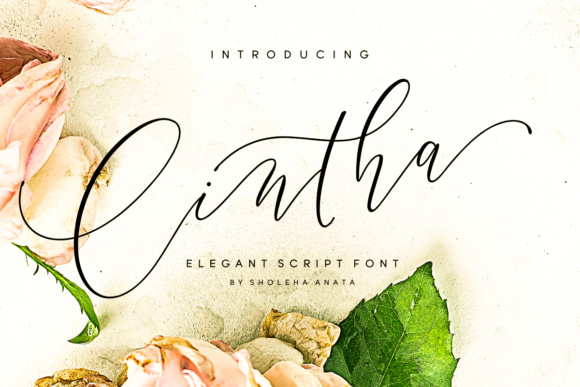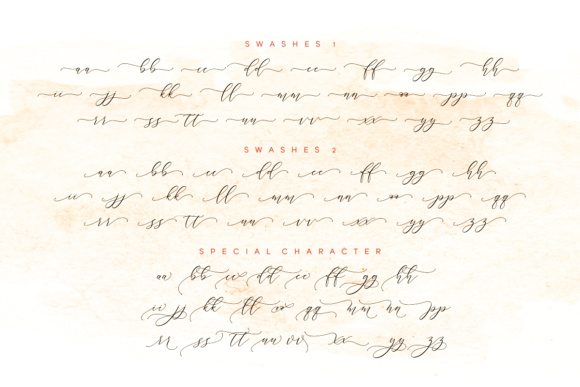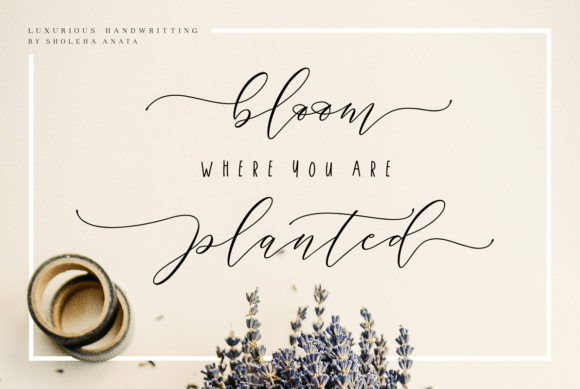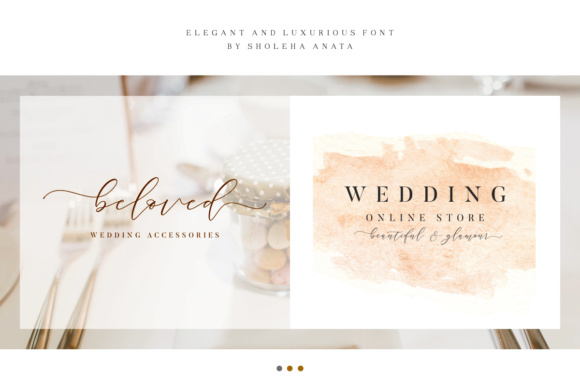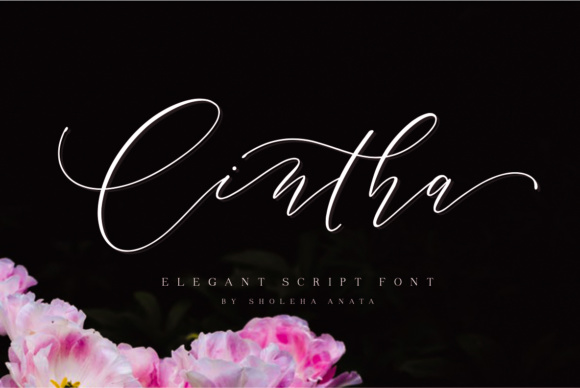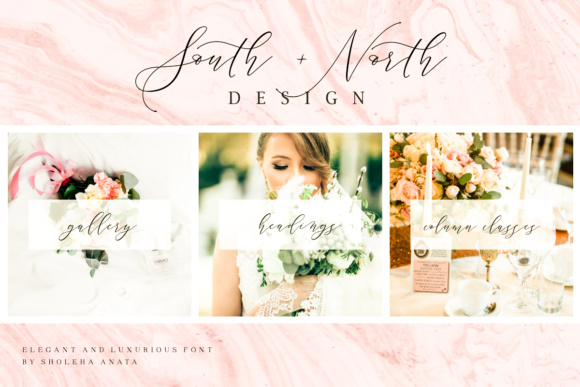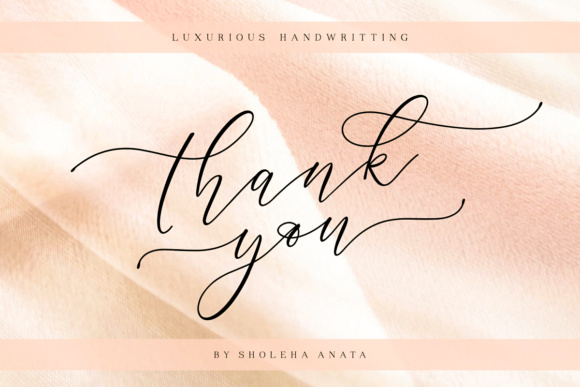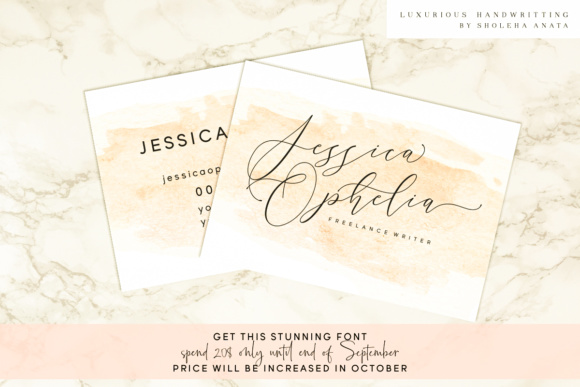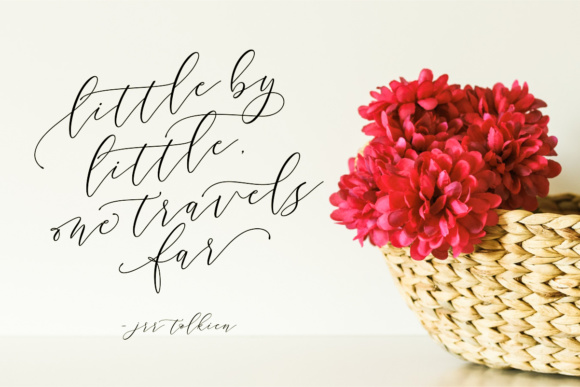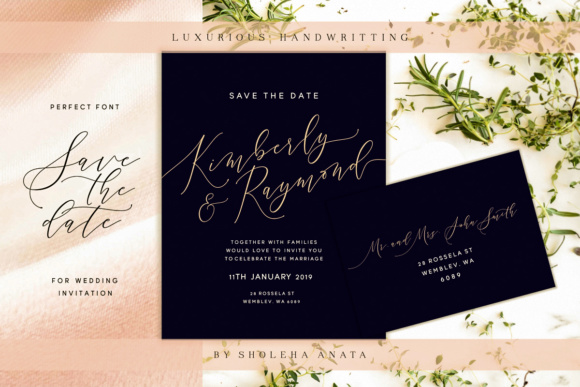
Cintha Font
About Cintha Font
The Cintha is an elegant script font, inspired by wedding invitations. It’s a modern calligraphy font with handwritten, sophisticated flows and a smooth texture.